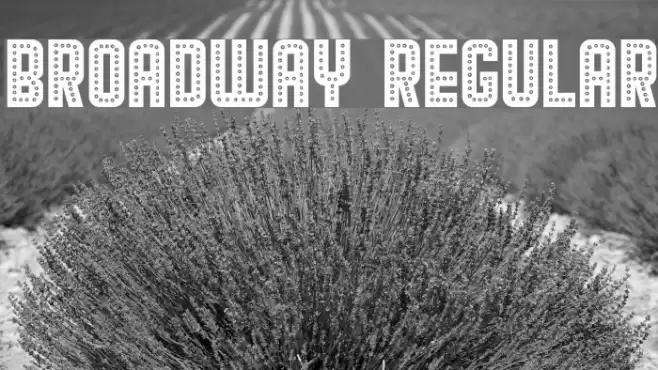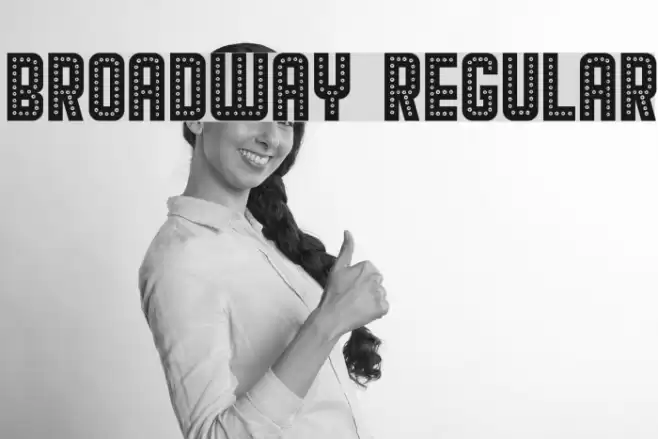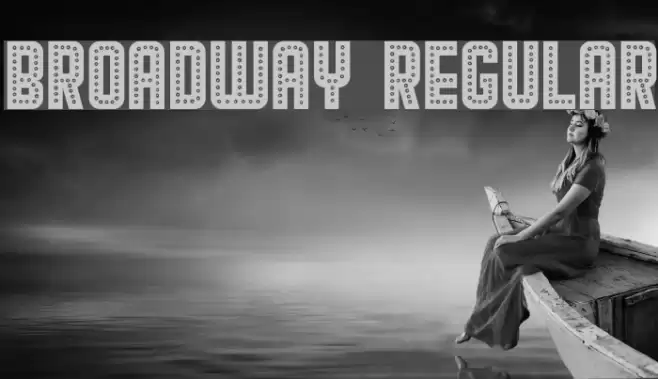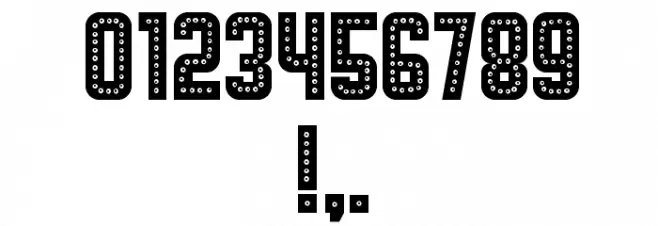
Broadway Regular Font
Broadway Regular Description
This font features a bold, decorative style with a unique dotted pattern filling each character. The uppercase and lowercase letters, as well as numbers, are designed with a consistent geometric structure, giving them a modern and eye-catching appearance. The dots within each character create a sense of movement and rhythm, making it ideal for designs that require a lively and dynamic feel. The font maintains a uniform weight throughout, ensuring readability while adding a playful touch. Its distinctive style makes it suitable for projects that aim to capture attention and convey a sense of fun and creativity.
A bold, decorative font with a unique dotted pattern for a lively and dynamic look from Uncategorized fonts.
- Proposed Projects: Ideal for posters, signage, event invitations, and any project needing a playful, eye-catching design.